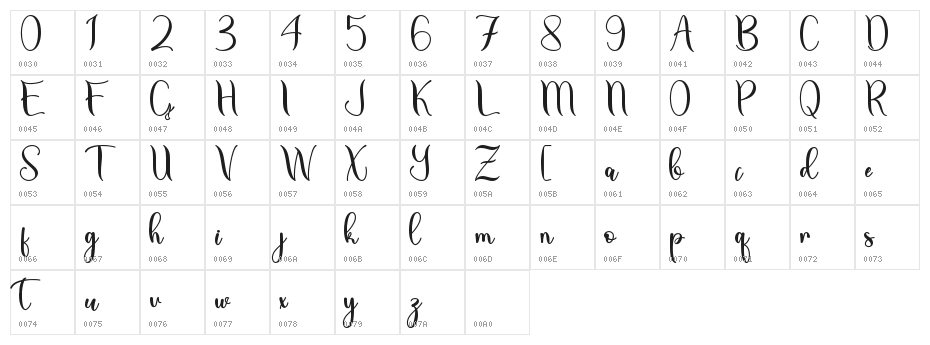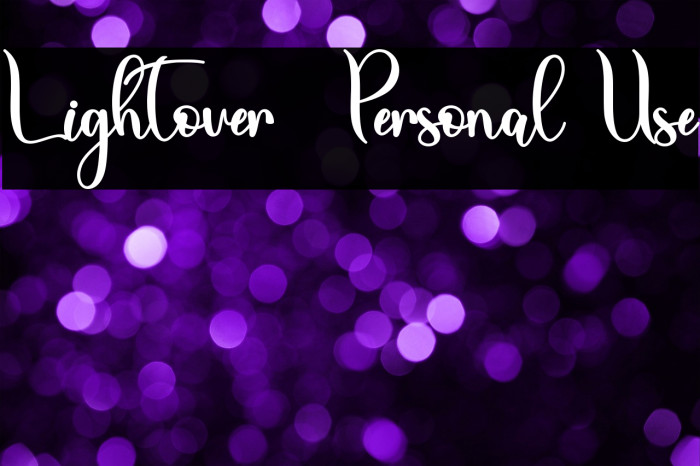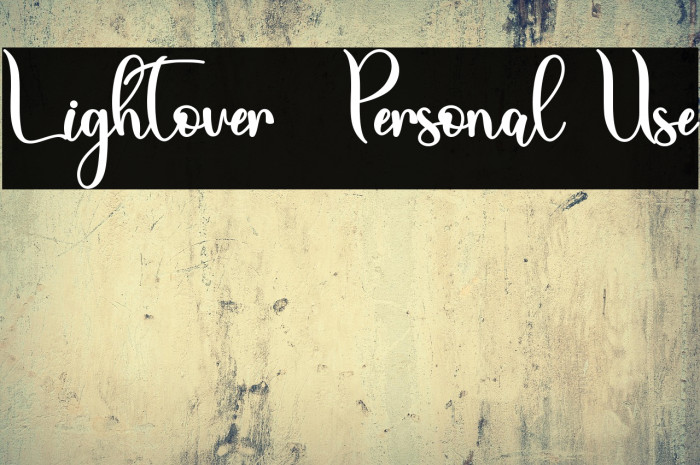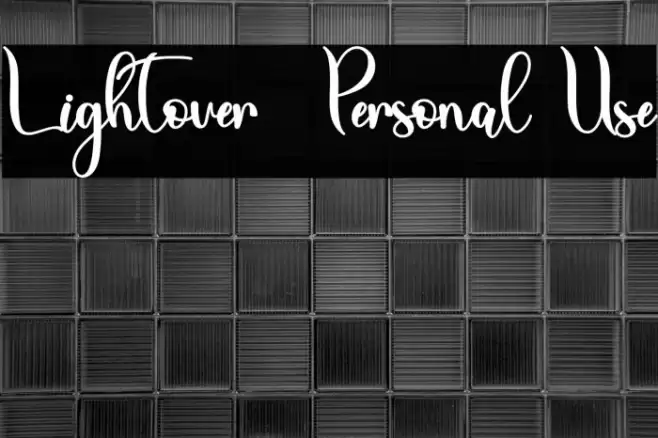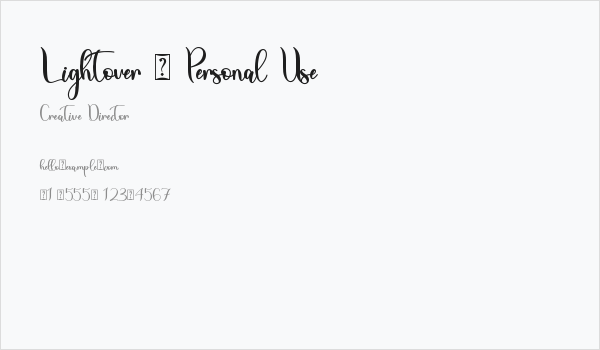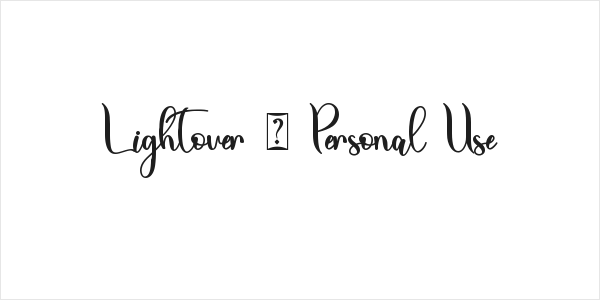
Lightover - Personal Use Font
Lightover - Personal Use Description
This font features an elegant and flowing script style, characterized by its smooth, cursive strokes and artistic flair. The uppercase letters are tall and slender, with a slight slant that adds a dynamic feel. The lowercase letters are more rounded and connected, creating a harmonious and fluid appearance. The numerals are consistent with the overall style, maintaining the same graceful curves. Special characters are thoughtfully designed to match the aesthetic, ensuring a cohesive look across all text. This font exudes a sense of sophistication and creativity, making it suitable for a variety of artistic and formal applications.
| Overall Style | Elegant, Artistic |
| Proposed Projects | Ideal for wedding invitations, greeting cards, branding, and elegant logos. |